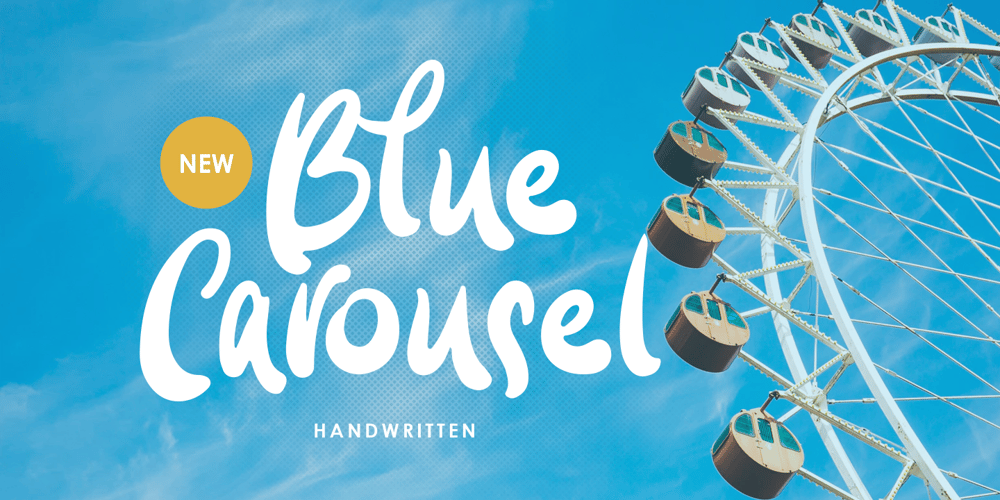
Blue Carousel
Blue Carousel font
Blue Carousel Font Family was designed by Hendry Juanda and published by Letterhend. Blue Carousel contains 1 styles and family package options. Blue Carousel is a bold handwritten script typeface with fun and playful look. This type of font perfectly made to be applied especially in logo, and the other various formal forms such as invitations, labels, logos, magazines, books, greeting / wedding cards, packaging, fashion, make up, stationery, novels, labels or any type of advertising purpose.Features : uppercase & lowercase numbers and punctuation multilingual alternates and ligatures PUA encoded We highly recommend using a program that supports OpenType features and Glyphs panels like many of Adobe apps and Corel Draw, so you can see and access all Glyph variations.